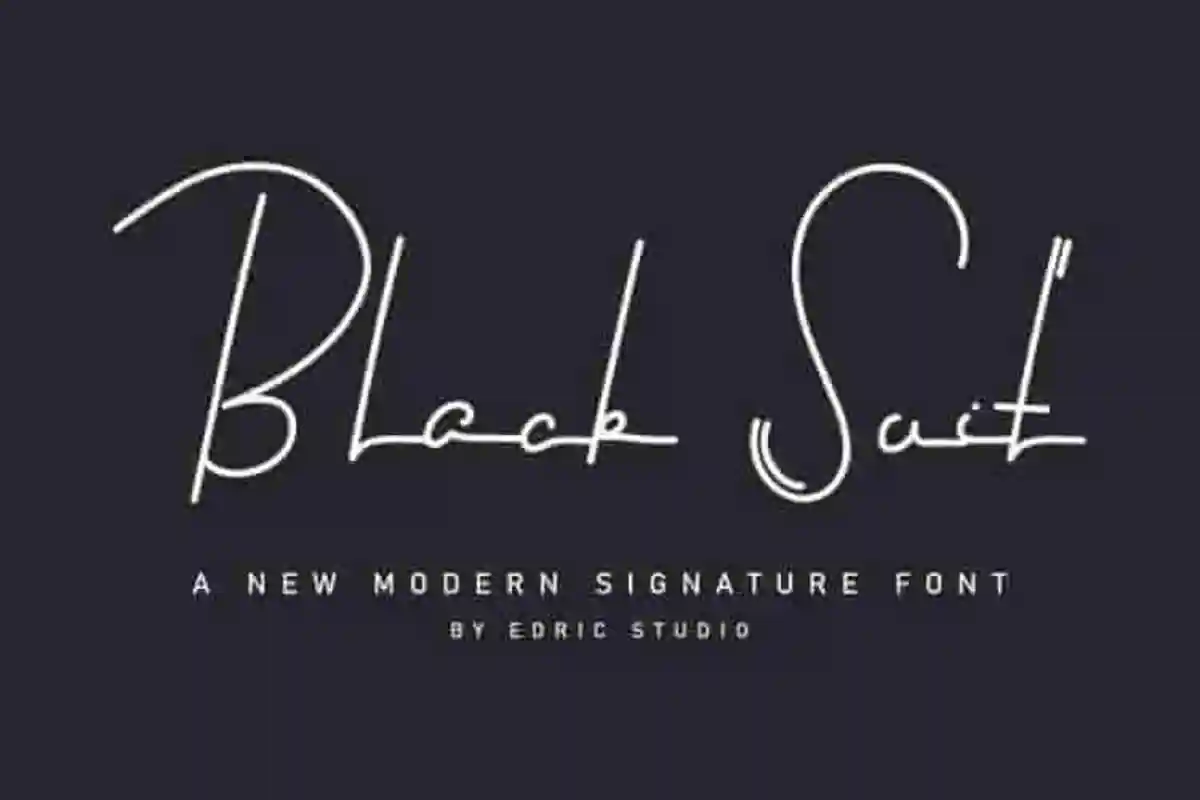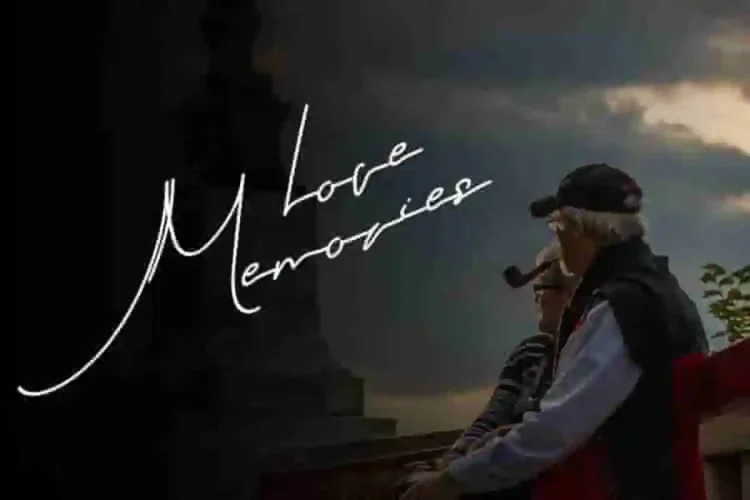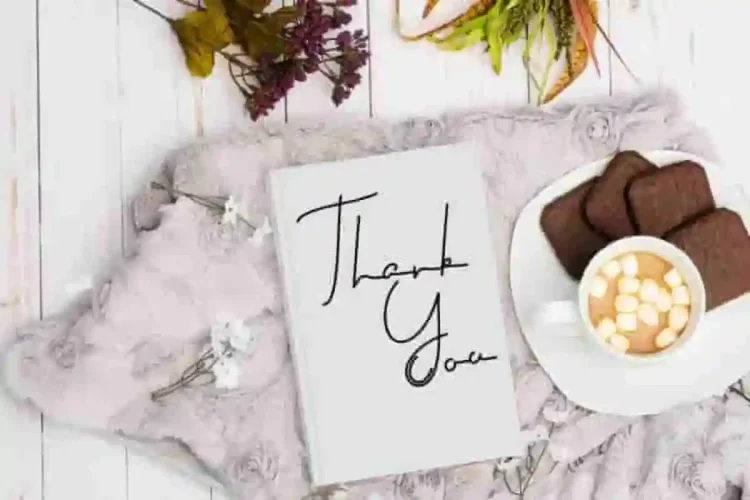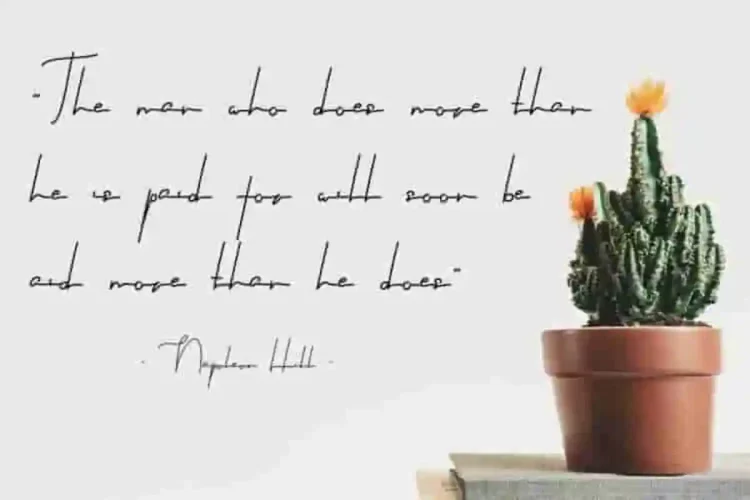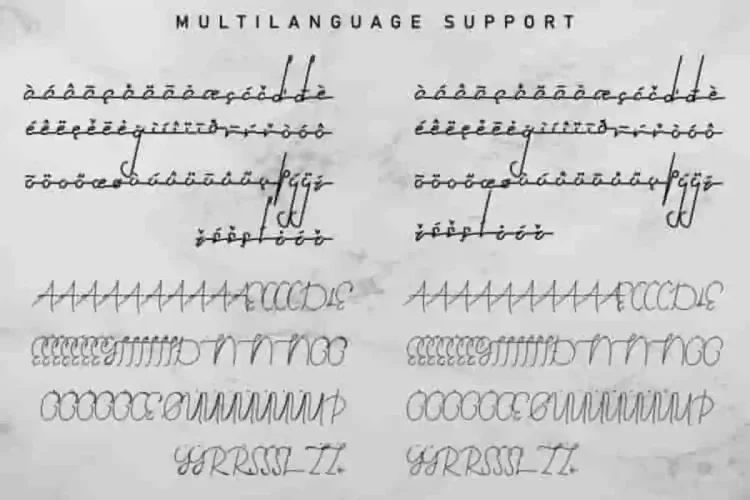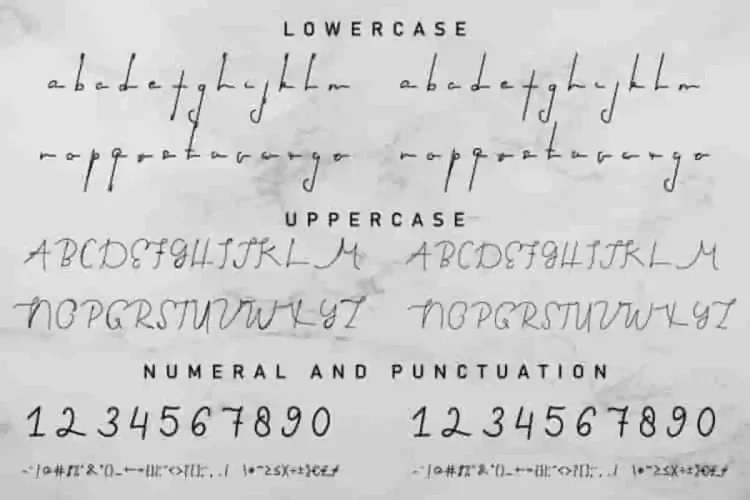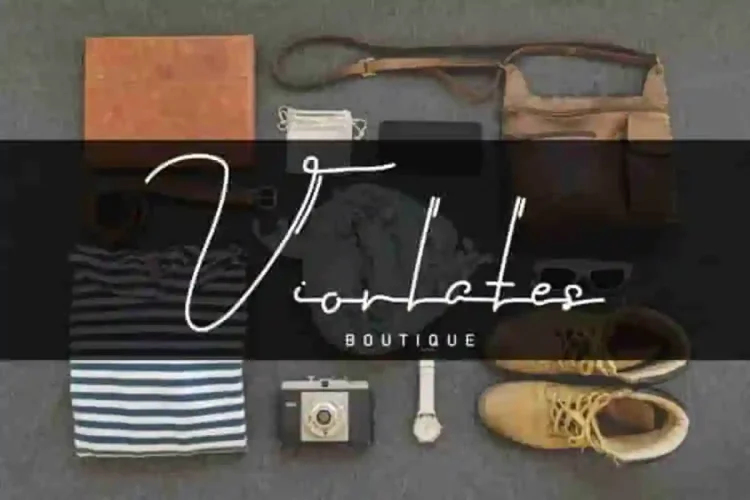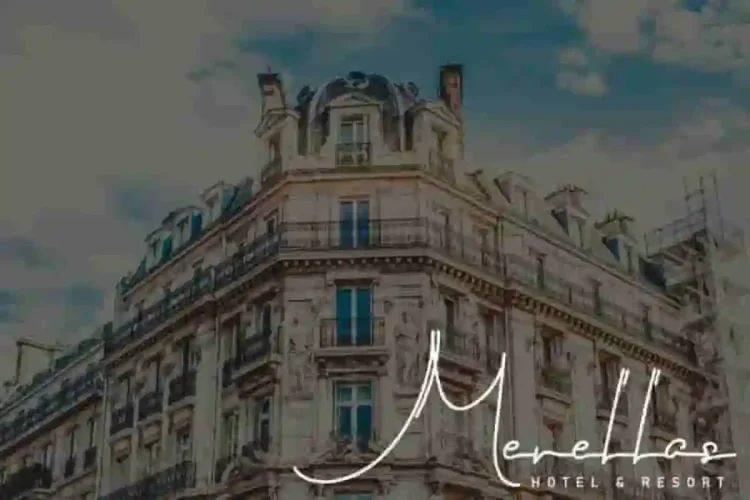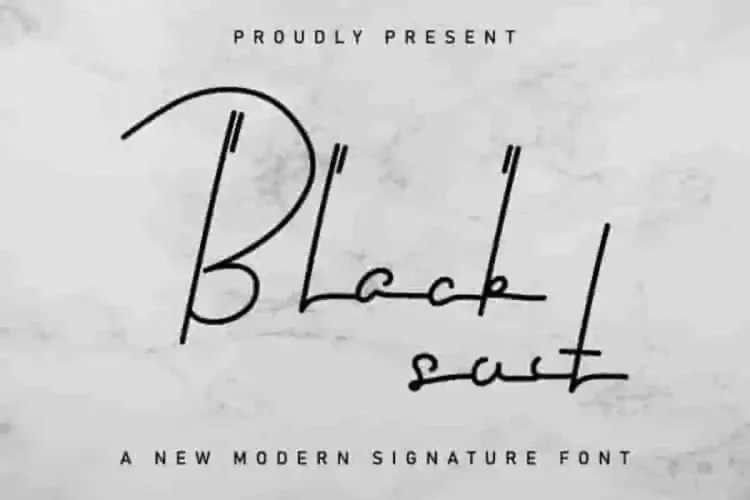
Black Suit Calligraphy Script Font
The newest font from our lovely artist : Black Suit Calligraphy Script Font
This is a signature font, handcrafted from our Studio here in, Indonesia. The artists/designers of this beautiful tyeface is Saila and Sarah Suci.
Black Suit Calligraphy Script Font is an exclusive calligraphy script typeface with signature style. This font has a stunning characters set, perfectly managed with well spaced and kerning.
Black Suit Calligraphy Script Font will be great for any projects (with exntended license) including : branding, logo, stationery, business card, signage, flyer, brochure etc. Almost all industries will be match for this typeface: wedding, events, real estate, architect, law firm, florist, gardening, makeup artist, travel, hotel, musician etc.
Black Suit Calligraphy Script Font has two styles : regular and inline style.